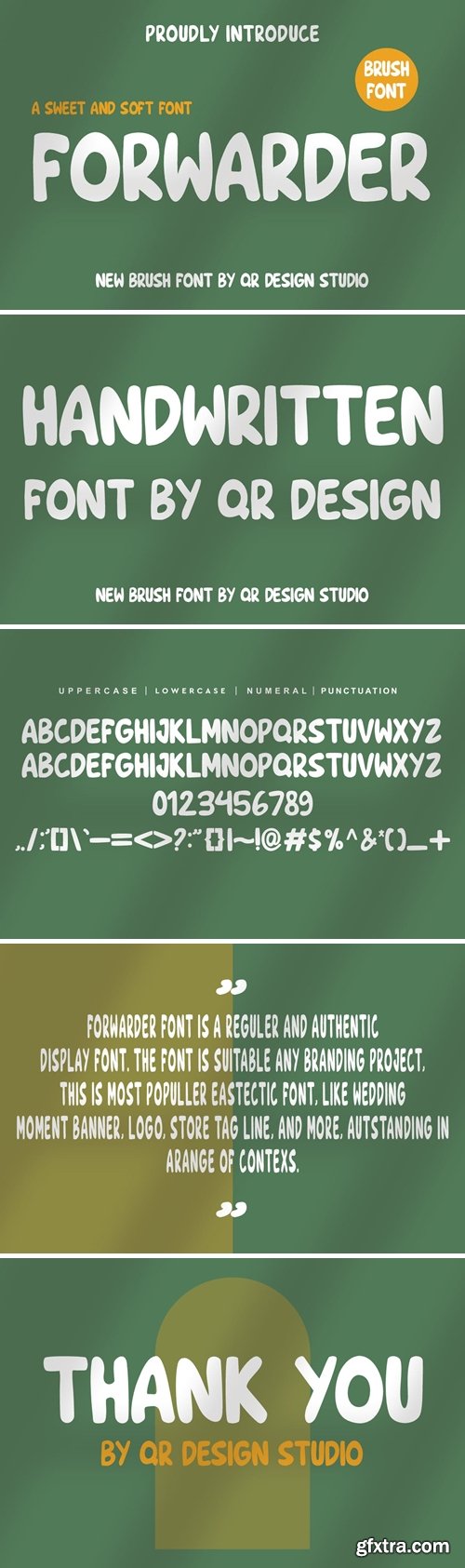
Forwarder Font
Forwarder Font is a bold and authentic display font. The font is suitable for any branding project like logo, food, and many more. Outstanding in a wide range of contexts.